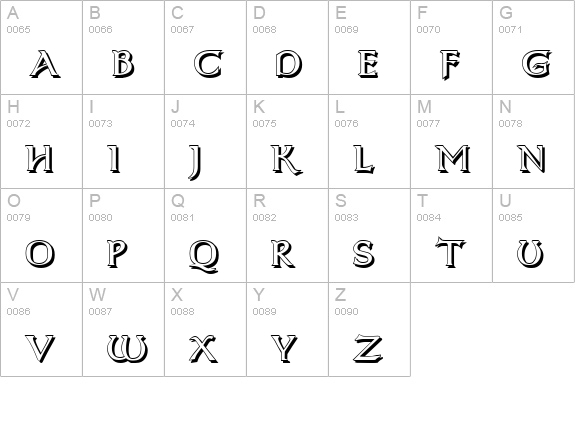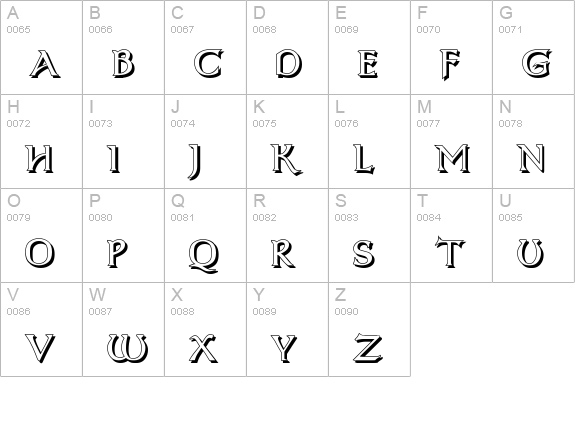
Dumbledor 2 Shadow Font Details
Dumbledor 2 Shadow font is a captivating and whimsical typeface that exudes a sense of mystery and enchantment. Its intricate shadows add depth and dimension to each character, creating a stunning visual impact. This versatile font is perfect for adding a touch of magic to your projects, whether you're designing a fantasy book cover, crafting a mystical logo, or creating spellbinding posters. What makes Dumbledor 2 Shadow font even more enchanting is that it is available for free download at FontsMarket.com. This means you can easily access this captivating font and use it in your designs without any cost. Don't miss out on the opportunity to add a touch of magic to your creations with the mesmerizing Dumbledor 2 Shadow font – download it for free today!